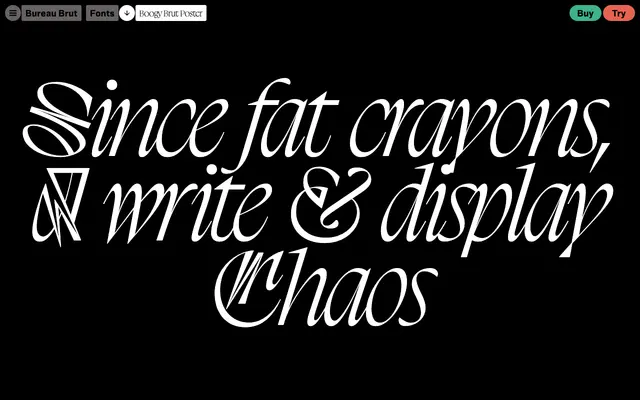
Boogy Brut Poster
Bureau Brut · Julien Priez & Yoann Minet · 2020
Boogy Brut Poster specimen from Bureau Brut
A display subfamily of Boogy Brut by Julien Priez and Yoann Minet, built around calligraphic structure with sharply modelled forms tuned for tight poster setting.
Available in White and Black, each with a matching italic and a Wild ornamental cut, the Poster subfamily sits closest to its calligraphic source material within the broader Boogy Brut family. Finials are drawn to allow very close spacing so letter transitions remain organic, and some pairs produce natural ligatures when set touching. A Wild variant pushes the design toward initials territory, where legibility yields to graphic expression.
A display subfamily of the Boogy Brut family, rooted in calligraphic structure but stripped of handmade imperfection; its sharply modelled shapes and tight-fitting finials make it primarily a poster and headline face rather than a text or script typeface.